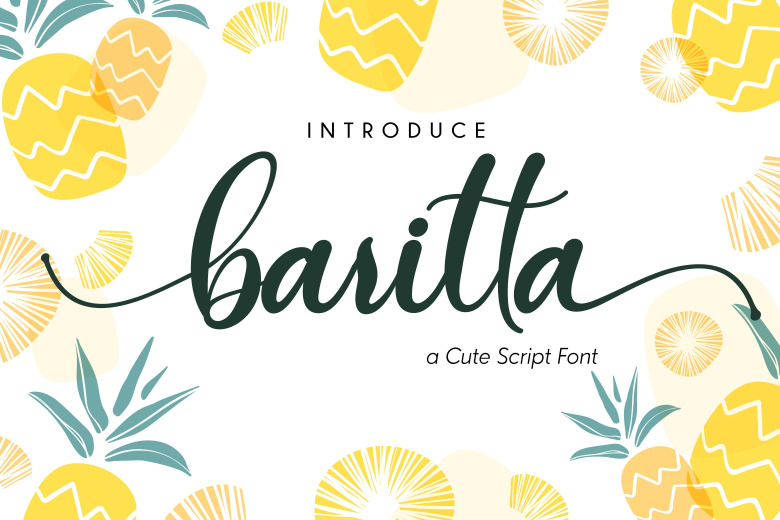
Baritta Font
Baritta-Script font
This is casual script font, with clean bold stroke, slanted and fun character. Made from font designer named FallenGraphic Std. In this font script there are many alternative choices of characters Support Ligature and Stylistic set. So beautiful on invitation like greeting cards, branding materials, business cards, quotes, posters,wedding invitations and more!!